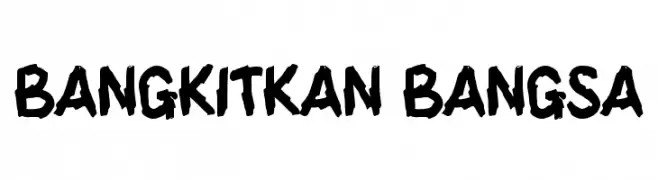
A playful, bold font with rounded, chunky letters.
A bold, geometric font with a filled, 3D appearance and sharp angles.
A bold, hollow, 3D-effect font with a modern and dynamic style.
A bold, geometric font with a 3D effect and textured grid pattern.
A bold, 3D geometric font with shadow effects and inline details.
A cursive, handwritten-style font with smooth, flowing strokes.
A modern serif font with elegant, readable letterforms and versatile design.
A bold, geometric font with sharp angles and a blocky, futuristic style.
A dynamic script font with elegant curves and a modern classic feel.
A hand-drawn, whimsical font with irregular strokes and a casual feel.
A playful handwritten font with thin, irregular strokes.
A bold, cursive font with dynamic strokes and a modern, artistic flair.
A bold, playful font with a hand-drawn, whimsical style.
A stylish, elegant script font with a modern handwritten feel.
A bold, dynamic script font with a handwritten, expressive style.
A bold, playful handwritten font with dynamic strokes.
A bold, distressed font with a rugged, hand-painted appearance.
A playful, hand-drawn font with a whimsical and entertaining style.
A dynamic and elegant script font with fluid strokes and dramatic flair.
A bold, decorative font with intricate, swirling details and a calligraphic flair.
A modern, geometric font with rounded edges and a clean, uniform appearance.
A modern, geometric font with rounded edges and a minimalist aesthetic.